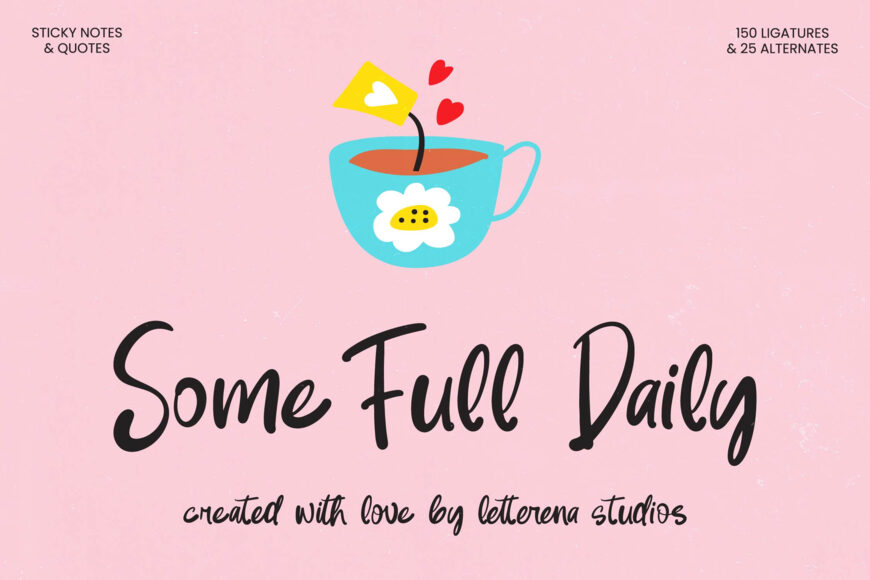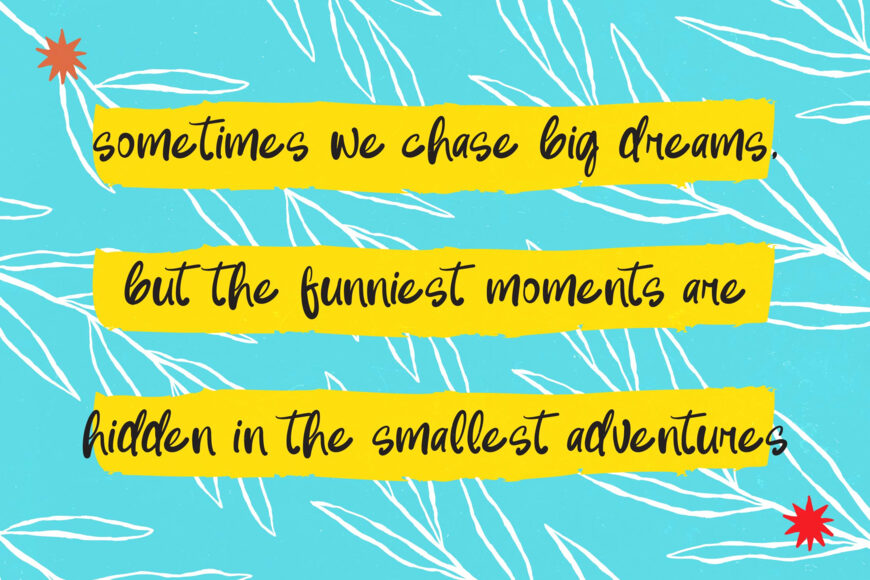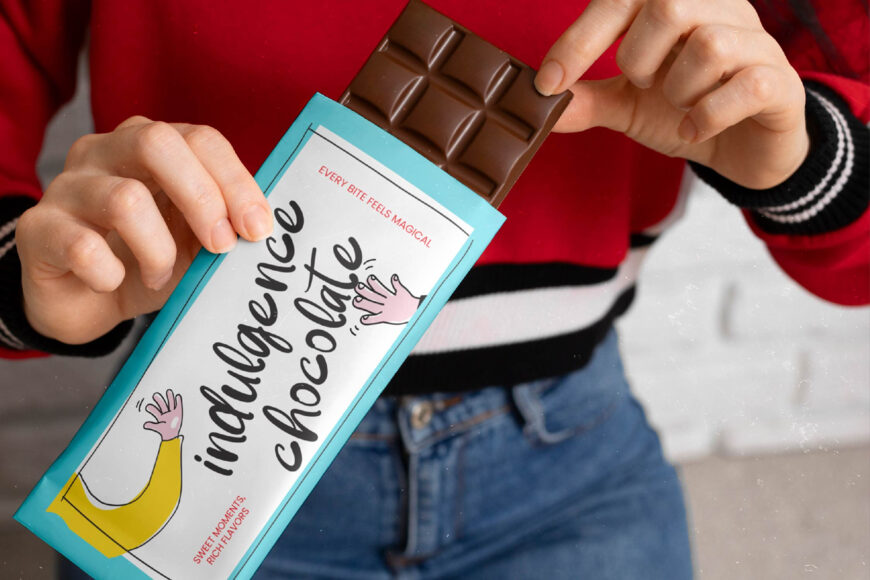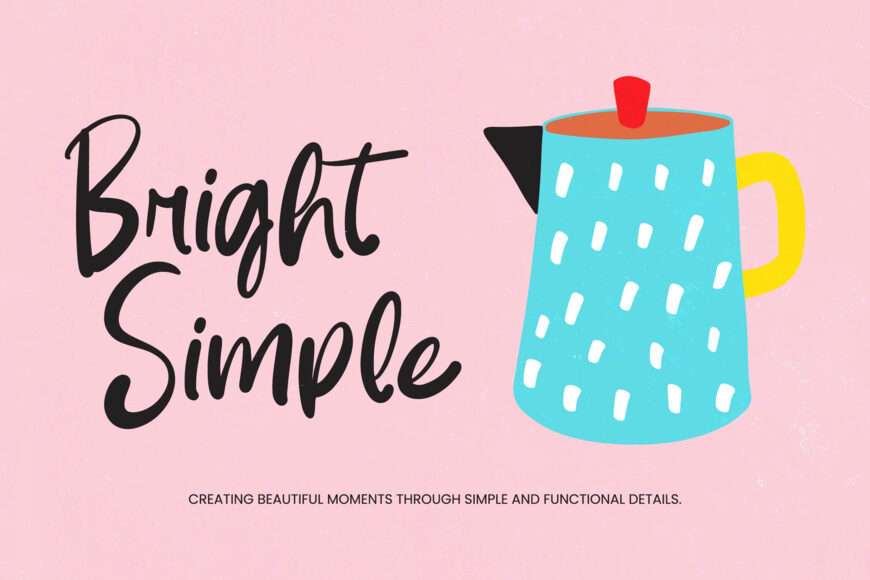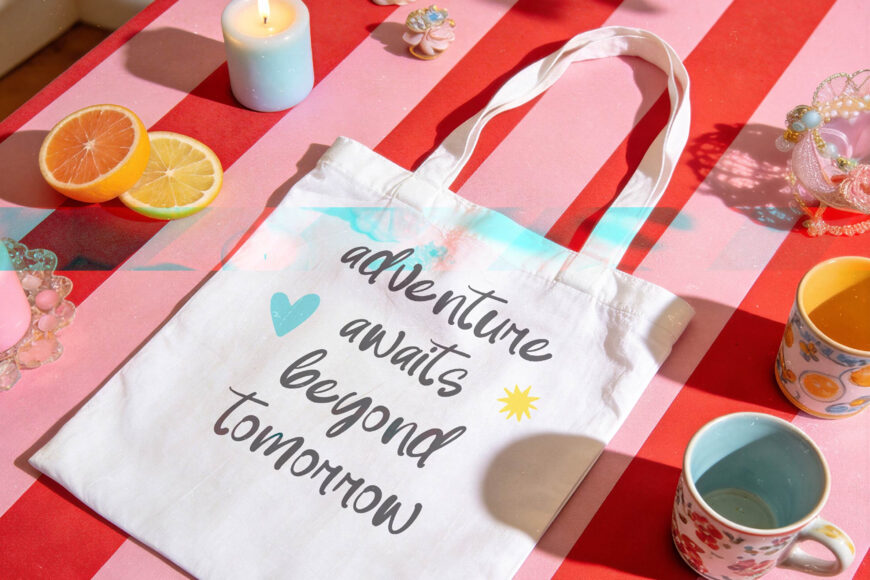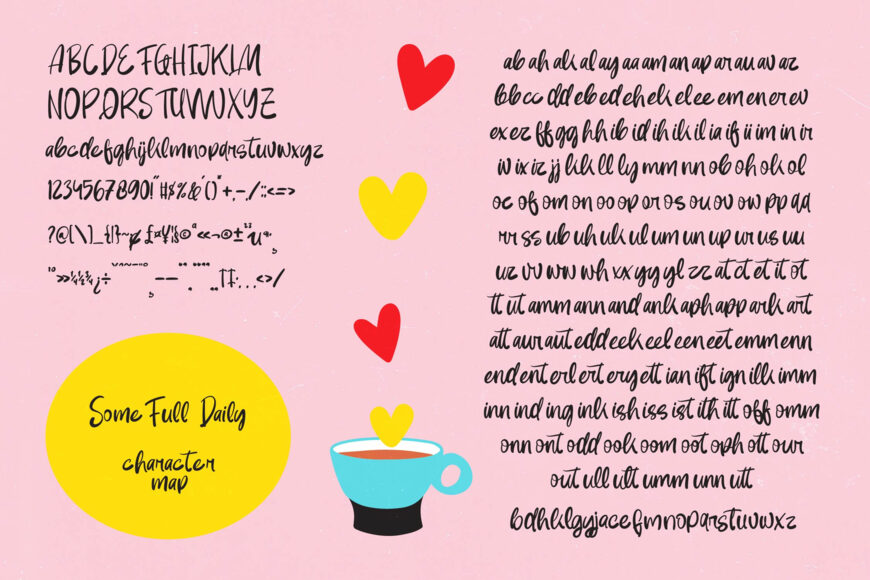
Add a personal touch to your designs with a handcrafted script font that combines playfulness and sophistication. Its 150 ligatures and 25 alternates offer customization options for unique headlines.
Suitable for luxury branding, editorial design, and packaging, this font also works well for social media graphics and greeting cards, bringing a relatable, hand-drawn feel to your projects. With multilingual support, it ensures clear and stylish messaging across languages and platforms.